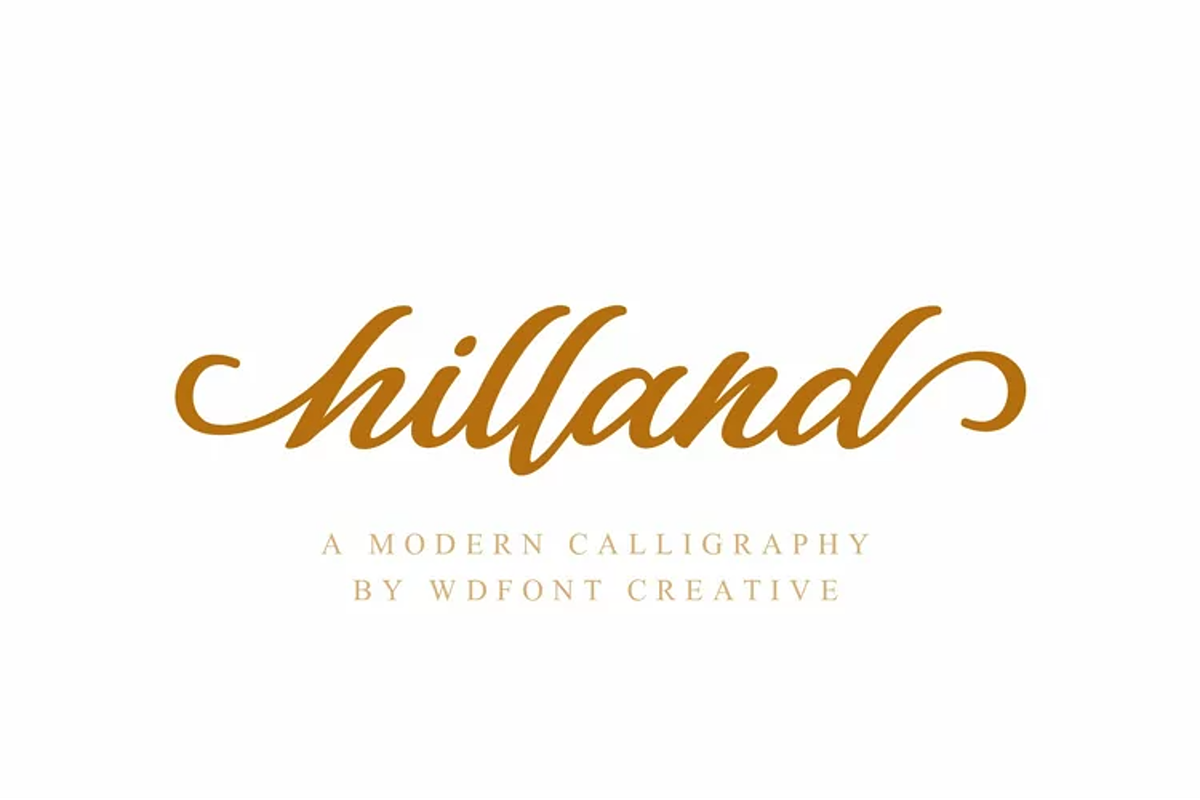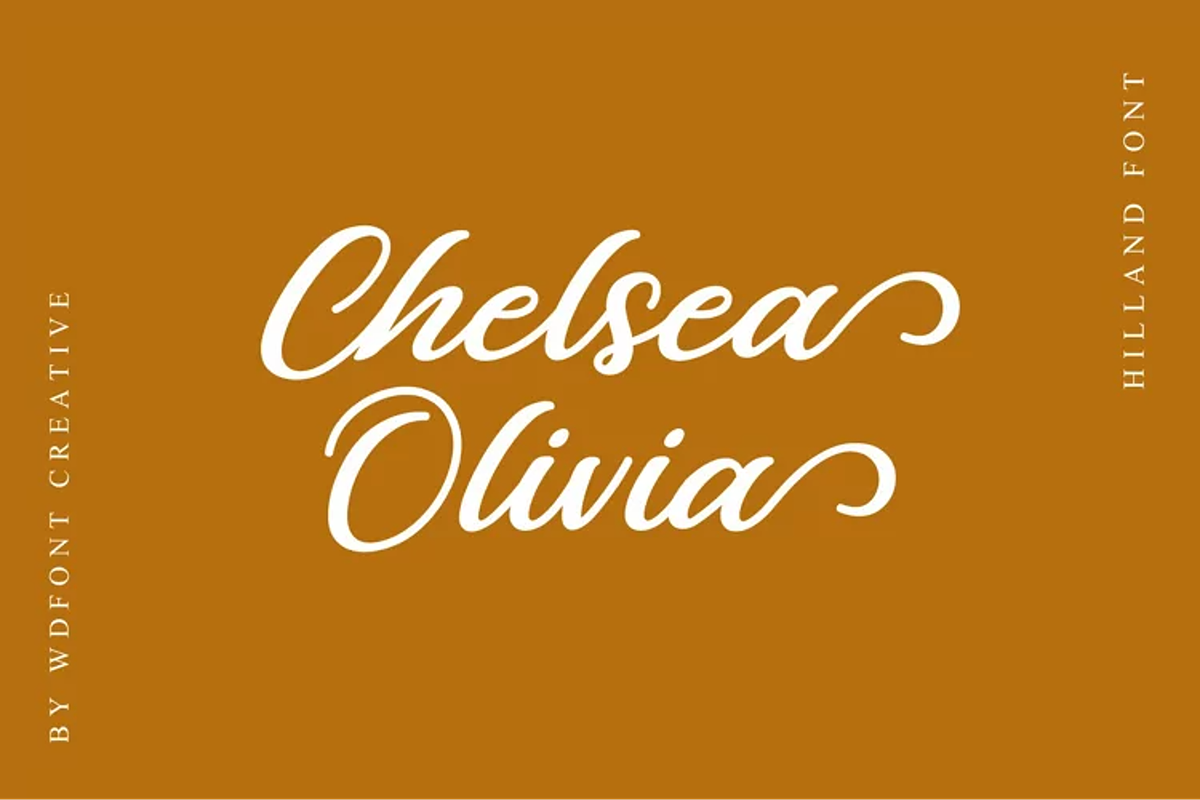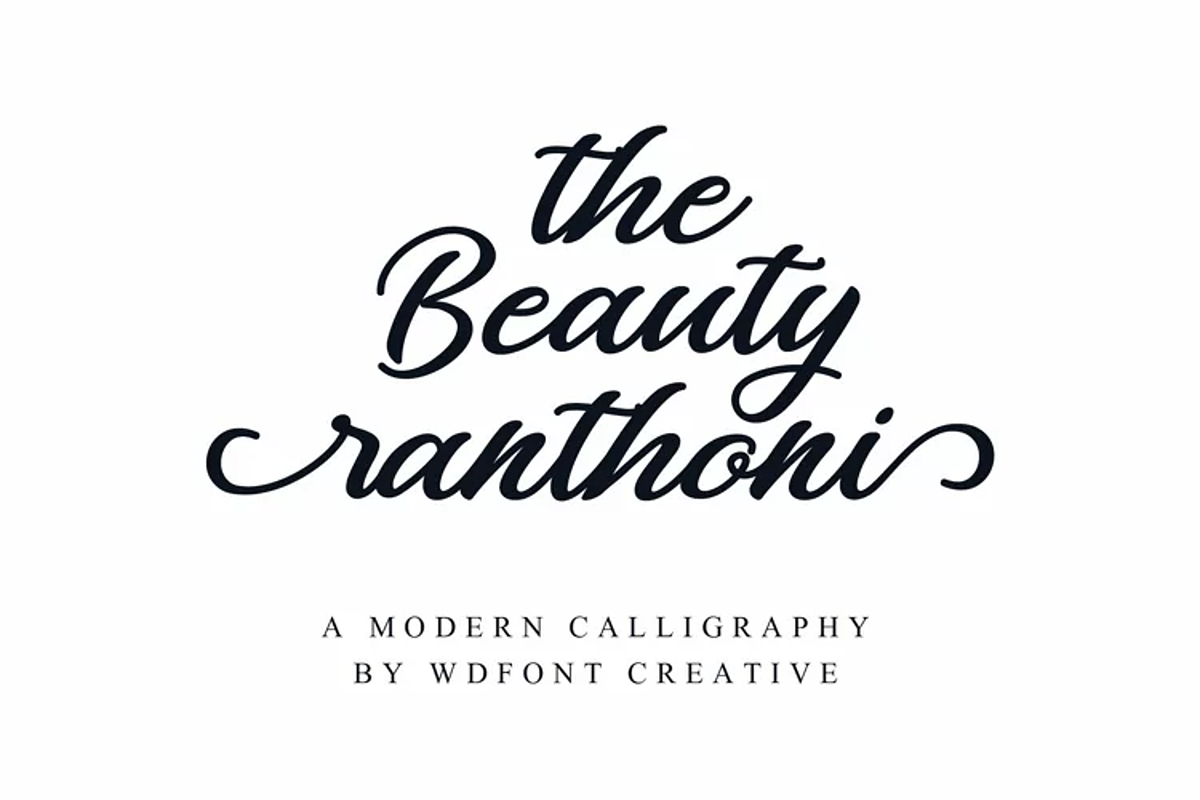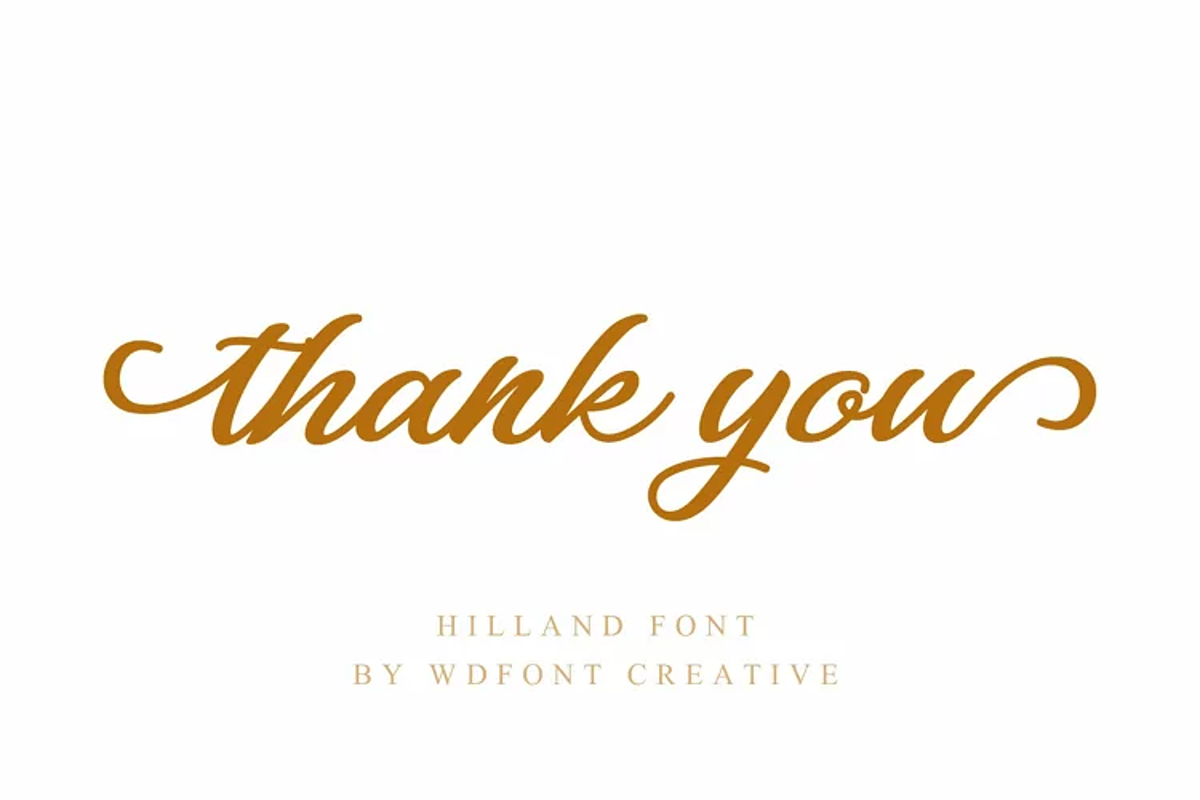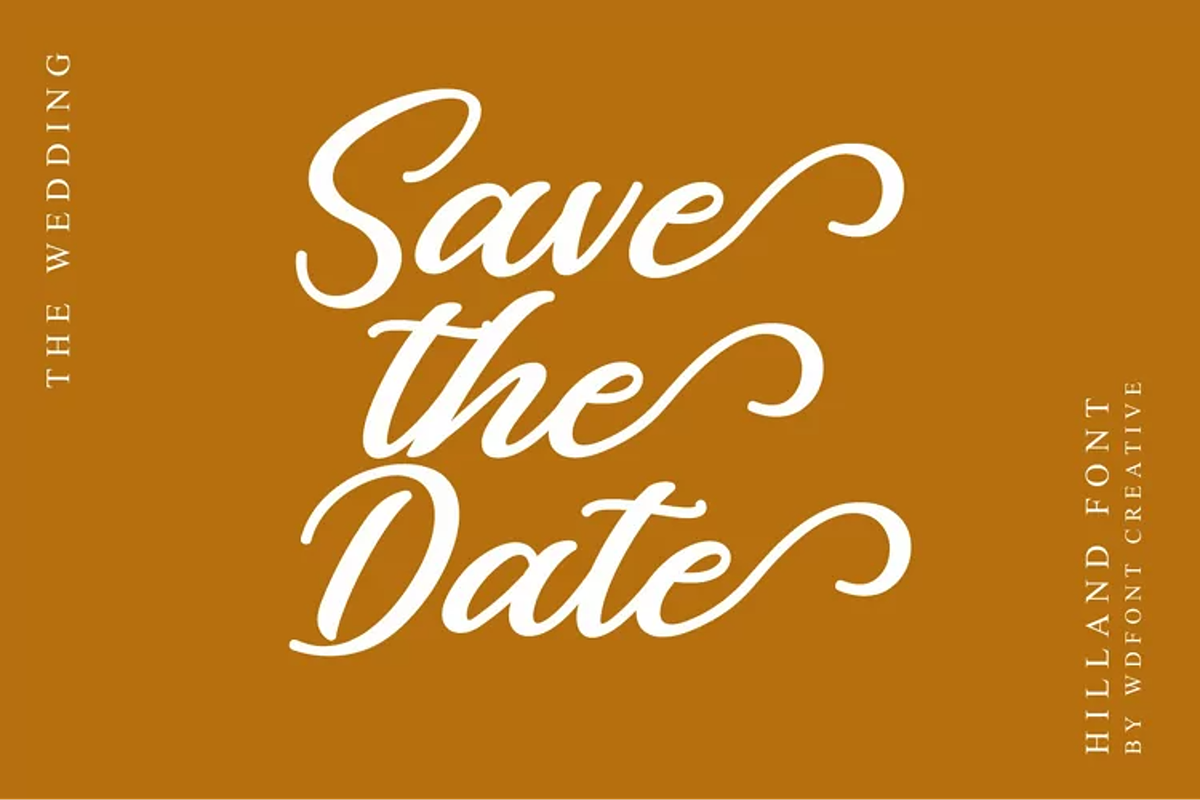
Hilland | Modern Stylish Font
Hilland is a light and fresh handwritten font that will inspire any design project with its incredibly romantic feel.
The alternative characters were divided into several Open Type features such as Swash, Stylistic Sets, Stylistic Alternates, Contextual Alternates. The Open Type features can be accessed by using Open Type savvy programs such as Adobe Illustrator, Adobe InDesign, Adobe Photoshop Corel Draw X version, And Microsoft Word. And this Font has given PUA unicode (specially coded fonts). so that all the alternate characters can easily be accessed in full by a craftsman or designer.
Foreign Languages Support:
- ÀÁÂÃÄÅÇÈÉÊËÌÍÎÏÐÑÒÓÔÕÖØÙÚÛÜÝßàáâãäåæçèéêëìíîïðñòóôõöøùúûüýÿ